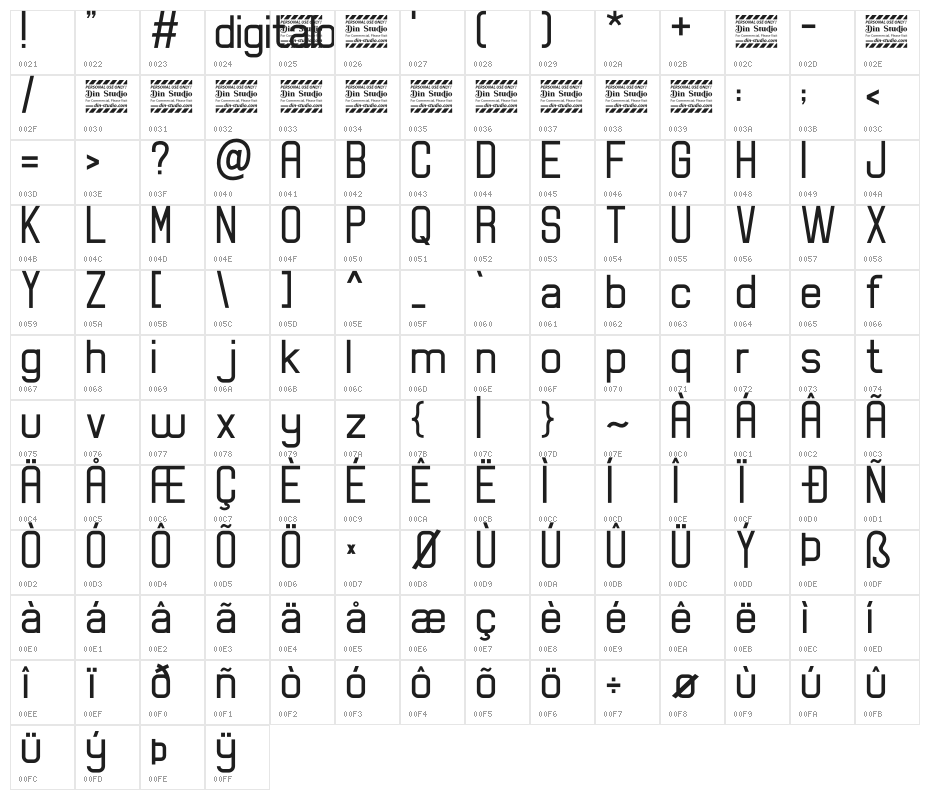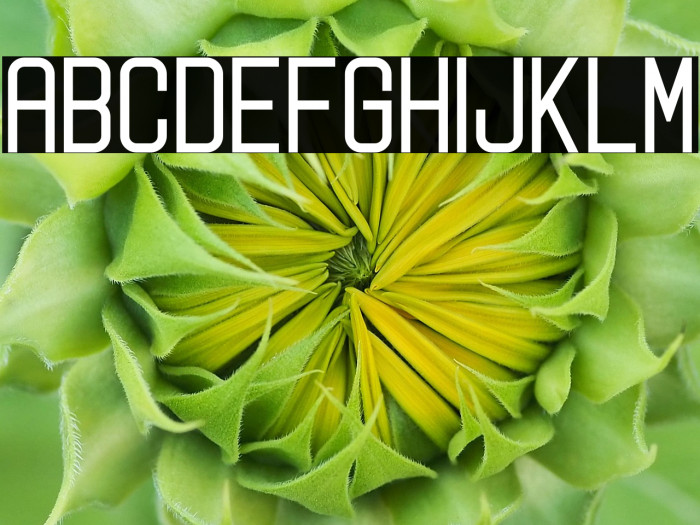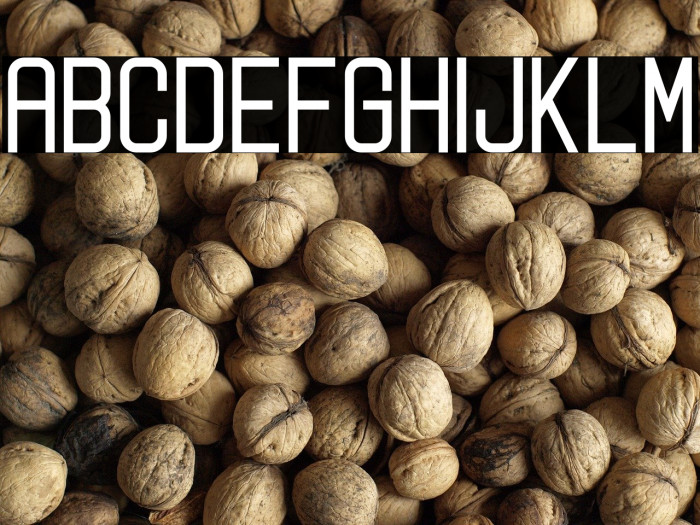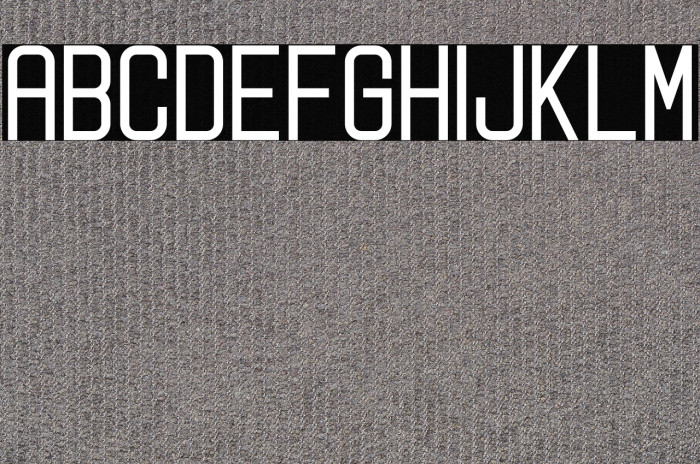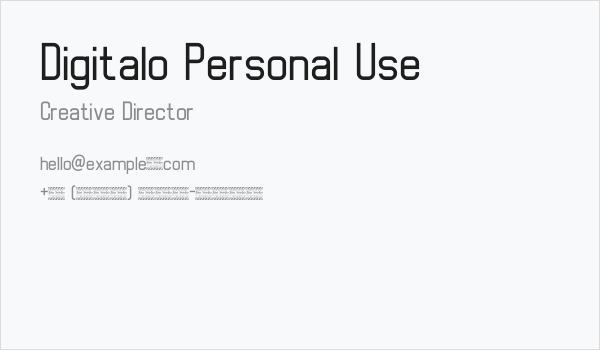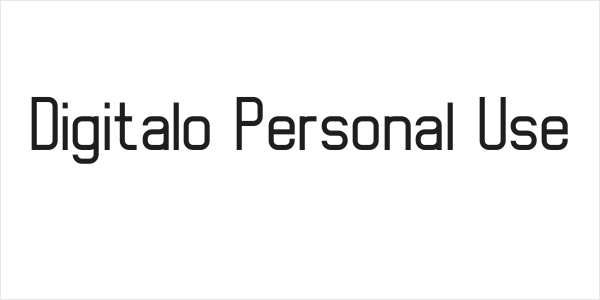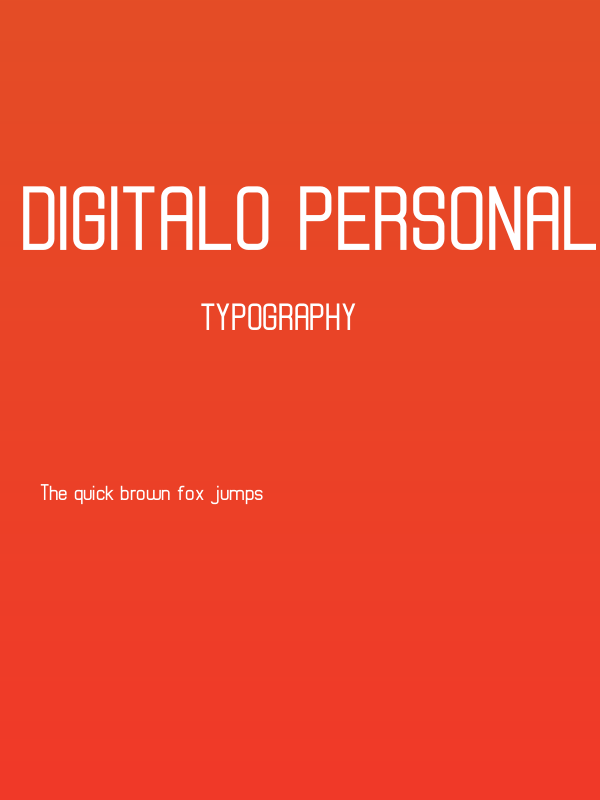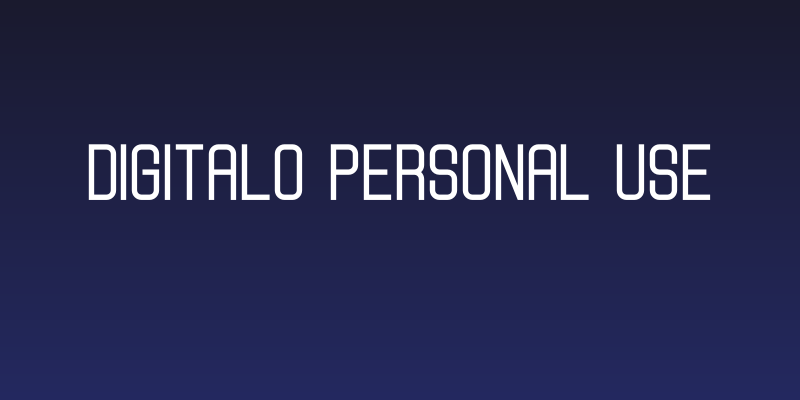
Digitalo Personal Use Font
Digitalo Personal Use Description
This font features a modern and sleek design with a geometric structure. The uppercase letters are tall and narrow, while the lowercase letters maintain a consistent height, providing a uniform appearance. The characters have a slightly condensed width, enhancing readability in various contexts. The font includes a full set of uppercase and lowercase letters, numbers, and a selection of special characters. Its clean lines and minimalistic style make it suitable for contemporary design projects.
| Proposed Projects | Ideal for digital interfaces, branding, advertising, and editorial design. |